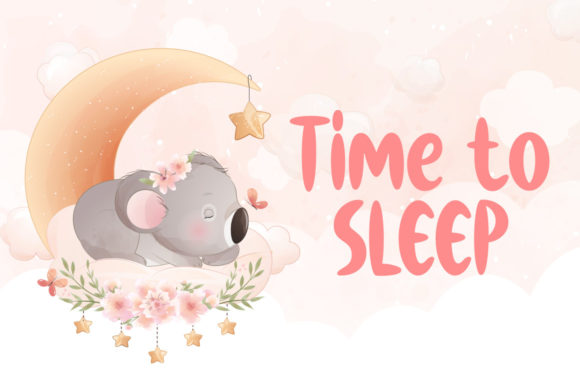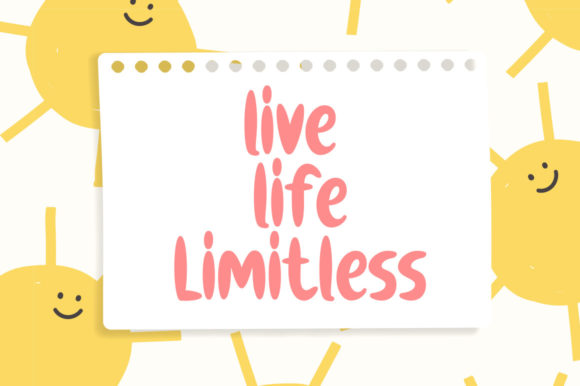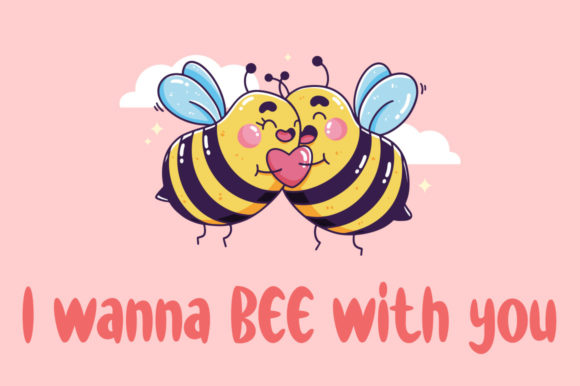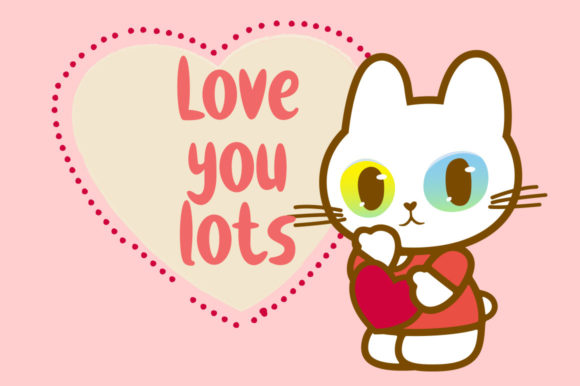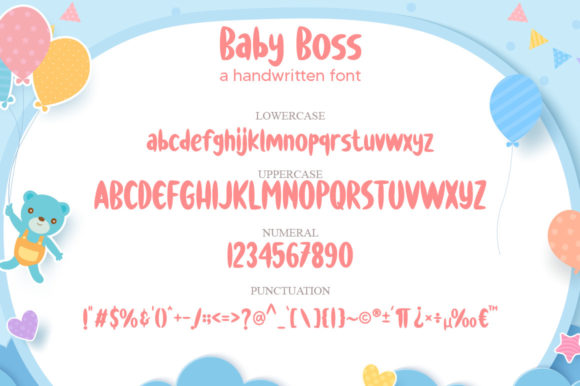
Baby Boss Font: The Ultimate Choice for Creative Designs
In the world of design, fonts play a crucial role in bringing creative ideas to life. Whether you’re working on a DIY project, designing a logo, or creating a cartoon title, the right font can make all the difference. If you’re on the hunt for a cool, trendy, and bold display font, look no further than Baby Boss Font. This versatile font is perfect for designers and crafters who want to add a touch of personality to their work.
What is Baby Boss Font?
Baby Boss Font is a modern, bold display font that’s designed to make a statement. Its unique and edgy style makes it perfect for a wide range of creative projects, from cartoon titles and posters to social media graphics and DIY crafts. With its clean lines and bold typography, Baby Boss Font is sure to grab attention and leave a lasting impression.
Key Features of Baby Boss Font
- Bold and Trendy: Baby Boss Font is a bold and trendy font that’s perfect for making a statement. Its modern design ensures that your work will stand out from the crowd.
- Versatile: This font is versatile and can be used for a wide range of creative projects, from cartoon titles and posters to social media graphics and DIY crafts.
- Easy to Read: Despite its bold style, Baby Boss Font is easy to read, making it perfect for headlines, titles, and short paragraphs of text.
- High-Quality: Baby Boss Font is a high-quality font that’s designed to deliver crisp and clear results, even at large sizes.
Uses of Baby Boss Font
Baby Boss Font is a versatile font that can be used for a wide range of creative projects. Here are some ideas to get you started:
- Cartoon Titles: Add a touch of personality to your cartoon titles with Baby Boss Font. Its bold and playful style is perfect for kids’ shows, comics, and animations.
- DIY Projects: Whether you’re working on a craft project or a DIY tutorial, Baby Boss Font is a great choice. Use it to add a personal touch to your work and make it stand out.
- Social Media Graphics: Create eye-catching social media graphics with Baby Boss Font. Its bold style is perfect for grabbing attention and driving engagement.
- Posters and Flyers: Use Baby Boss Font to create bold and eye-catching posters and flyers. Its clean lines and bold typography make it perfect for advertising and promotional materials.
Tips for Using Baby Boss Font
Here are some tips for getting the most out of Baby Boss Font:
- Use it Sparingly: While Baby Boss Font is bold and eye-catching, it’s best to use it sparingly. Use it for headlines and titles, and a simpler font for body text.
- Experiment with Colors: Baby Boss Font looks great in a wide range of colors. Experiment with different colors to find the one that works best for your project.
- Pair it with Other Fonts: Don’t be afraid to pair Baby Boss Font with other fonts. Its bold style works well with simpler fonts, creating a visually appealing contrast.
In conclusion, Baby Boss Font is a cool, trendy, and bold display font that’s perfect for designers and crafters who want to add a touch of personality to their work. Its versatile style makes it suitable for a wide range of creative projects, from cartoon titles and posters to social media graphics and DIY crafts. With its clean lines, bold typography, and high-quality design, Baby Boss Font is sure to bring your creative ideas to life.